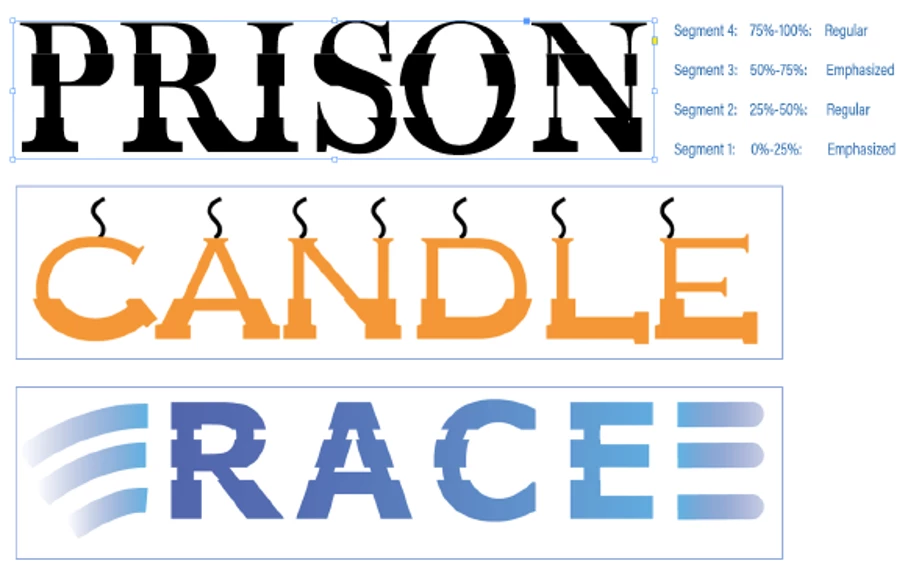
[Feedback] Usefulness for below types of fancy fonts and hybrid glyphs.
We wanted to know if there is any usefulness to generate custom fonts whose glyphs are a combination of bold and italic typeface. We call these glyphs “Hybrid Glyphs”. So, to say, each glyph is segmented into regions and each region may have a different typeface replicated.
In terms of workflow, the user selects the font, say regular, and defines the segment marks in terms of how low it is from the font ascender line. Let say he marks two points at 20% and 50% above from the fonts descender (total font height=ascender-descender). This will generate three segments. For each segment he then may choose a different typeface to be replicated. For example, he may choose Bold-Italic-Bold. This will even be possible if the designer does not have the bold and italic typefaces of the font. In such cases, it will replicate a false bold in the first segment, a false italic in the middle segment and a false bold in the third segment. In case the user has the required typefaces of the font family, then that portion of the glyph will be taken from the corresponding font. The user may choose any typeface like semi-bold, semi-italic, condensed etc
Some key aspects:
1. Glyphs can be partitioned into any number of segments
2. There is no convert to outline. Text remains live and editable
3. User can control the thickness of the bold and slant angle of the italics.. something like variable fonts
We primarily want to know...
1. Will this "feature" be useful to designers?
2. How often will you use this capability?
3. Under which scenarios and product will this most likely be useful? (maybe for Logos in AI? and titles in InDesign?)
4. Do you see any missing aspects to this which can increase its usage?
5. In light of the latest typography advancements (SVG fonts, variable fonts) how do you place this capability?
PS: This is not something we are implementing in any product for now. We just want your opinions and feedbacks.
Personally, I find this awesome.
As a typographer, I do look for ways to streamline glyph morphing. Looking for new extensions like this.